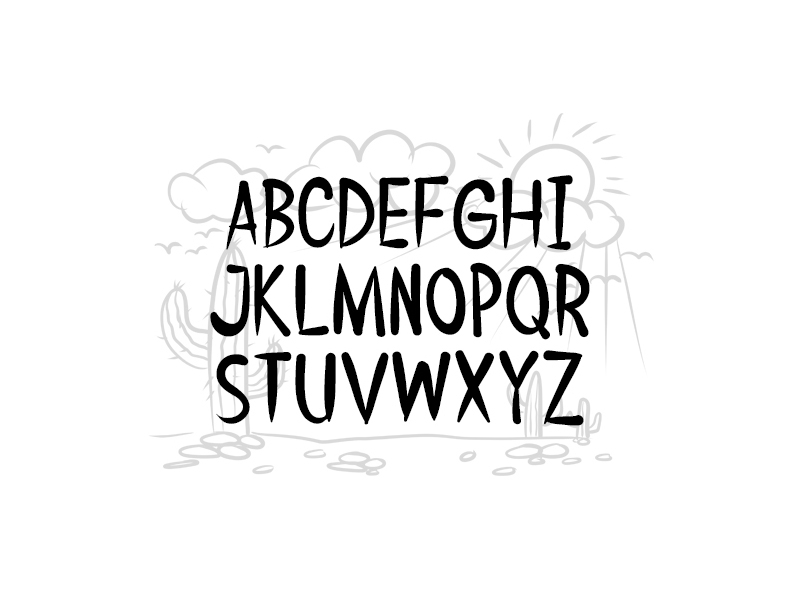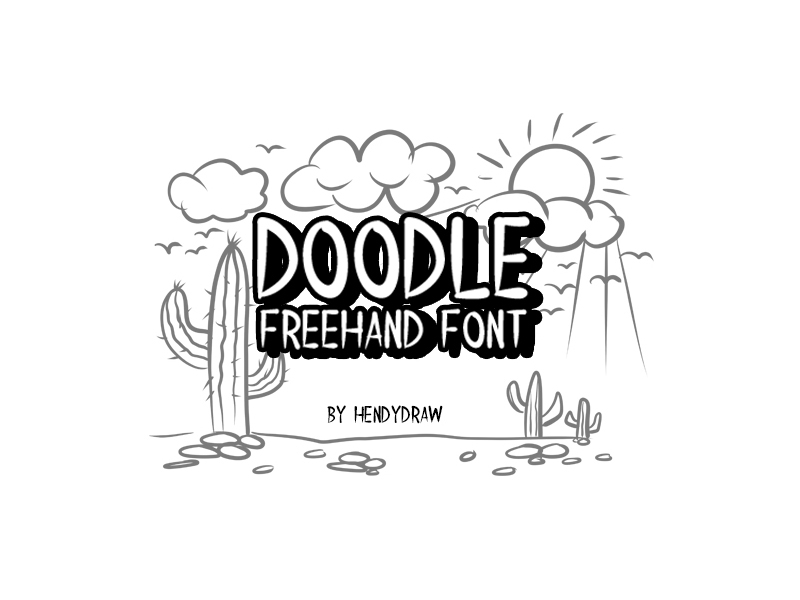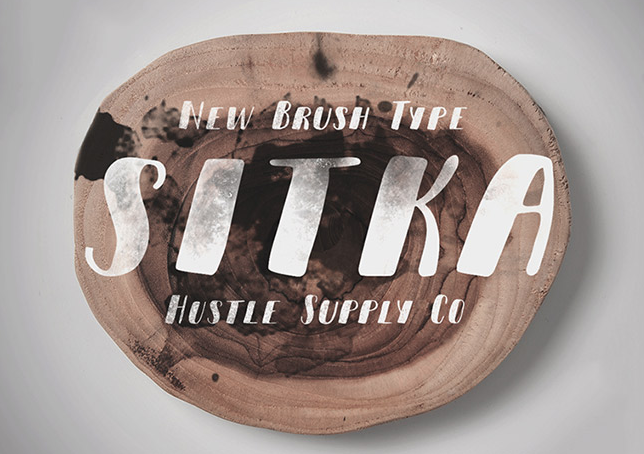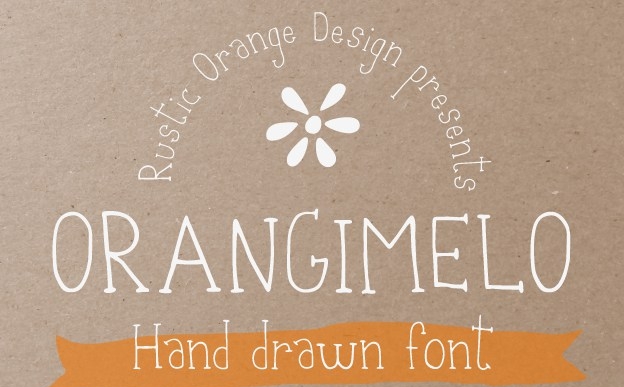
Free Squarespace Handwritten Fonts | Premium Fonts
Free and Premium Quality Fonts - Best Premium FontsWell high end is really a subjective word but these are fonts that in our opinion add sophistication and quality to a website. Font menus include all available font options including 600 google fonts and 1000 adobe fonts. The 5 most high end fonts for squarespace golive.
squarespace handwritten fonts
Squarespace handwritten fonts. This font bundle includes both a natural handwritten script and a refined elegant serif typeface. Squarespace font combinations top 5 best handwritten fonts we absolutely love the look of using handwritten fonts on websites but theres definitely an art to it. Scroll to browse our full library or use the menus search field to search for a specific font. If youre in the branding phase of your website you wont want to miss this.
This font works well as a header and body copy at all sizes depending on font weight and pairs well with serif and accent fonts. The font game can be pretty overwhelming. Below ive pulled together 10 of our best font pairings in squarespacethese suggestions will help yo. Joules et jacques feminine serif font duo with script.
Note that the script font used above is not included with this listing if youd like to purchase the paired script font you will need to do so separately. One of the advantages of using a squarespace template is the large amount of fonts to choose from but that can also feel like you are drowning in choices. Joules et jacques is a stylish and modern font duo created by nicky laatz. Is an elegant sans serif font.
Oct 1 2019 today im just sharing three favorite font combinations i love that are available on both squarespace and canva so you can have seamless and sophisticated brand consistency across both platforms. Handwritten fonts calligraphy fonts typography letters serif typeface font alphabet free. How fonts work in squarespace. What do we mean.
These are fonts i think would work best for body copy or long form text. 15023 downloads 5917 yesterday free for personal use 2 font files. We recommend using handwritten fonts only as your h2 or h3 those are sub headings for those of you who arent super familiar with squarespace yet rather than for your main. Best squarespace fonts for body copy.
These handwritten fonts are drawn using any kind of writing instrument like pen pencil felt marker brush etc. Cheers to ease and simplicity. To keep menus short we limit what appears at first focusing on your recently used fonts and our most popular options. But these fonts can also be used for headings.